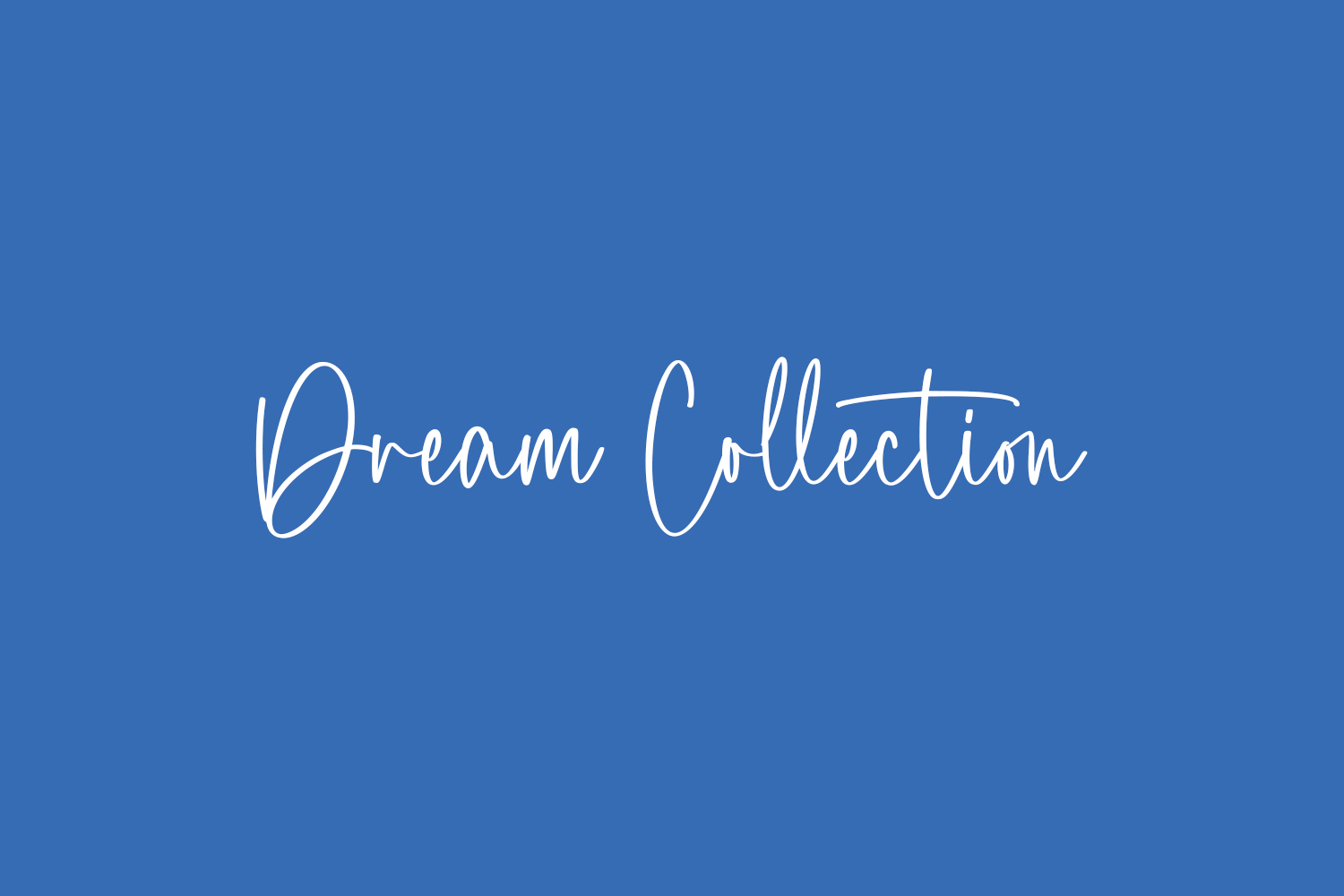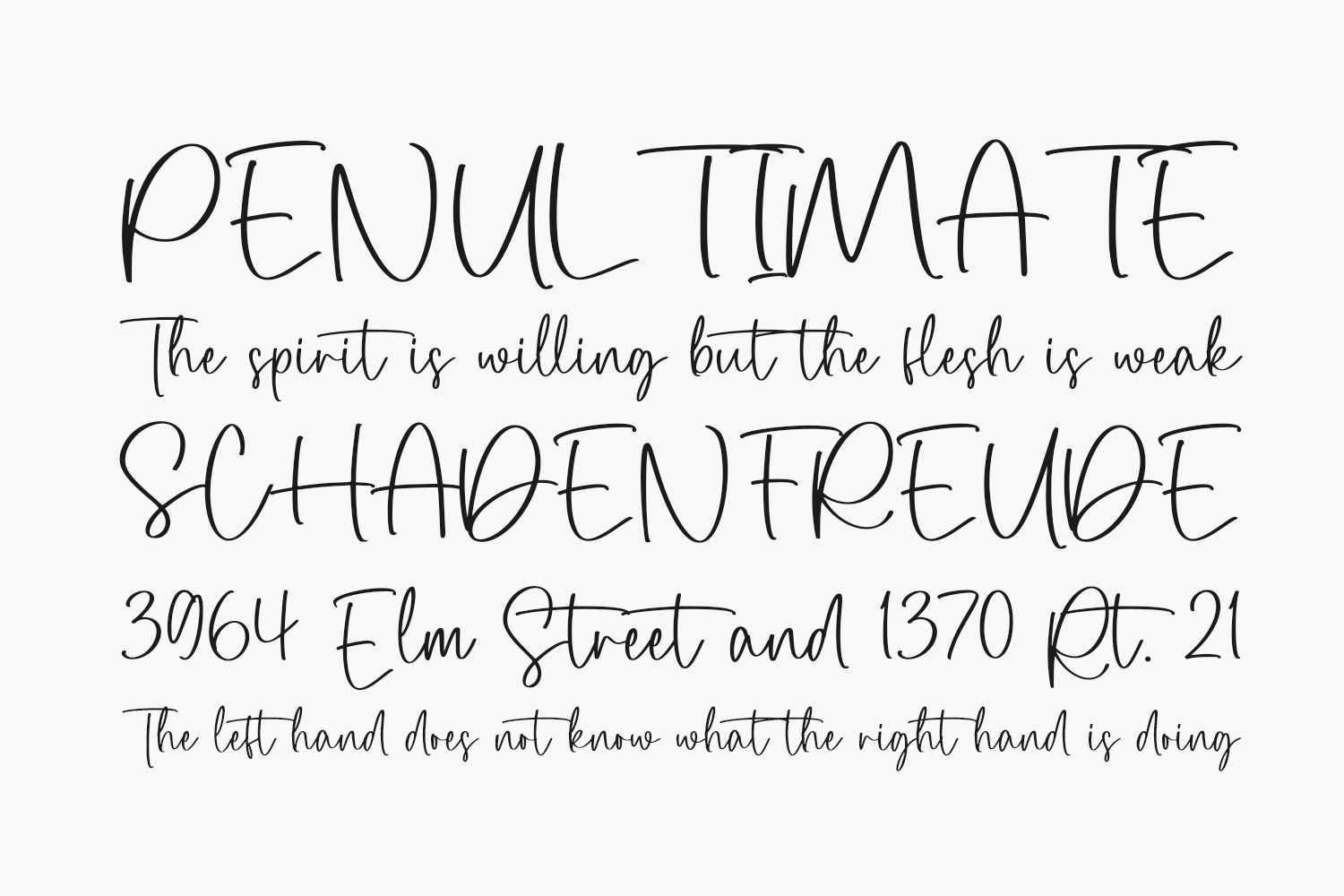
Introducing Dream Collection Free Font, a contemporary handwritten font that embodies a trendy and sophisticated concept. With its stylish and chic design, this font is perfect for adding a touch of elegance to your projects. Unlock endless creative possibilities with its included ligatures, allowing you to seamlessly mix and match elements in your design endeavors. Dream Collection Free Font is free for personal use only. Please purchase the full version for commercial use.